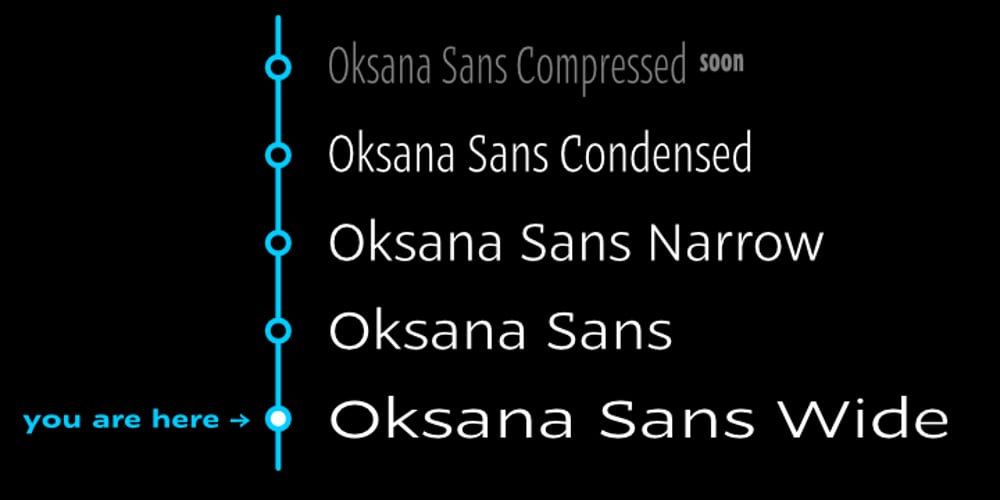
Oksana Sans Wide Font Family was designed by Andrij Shevchenko and published by AndrijType. Oksana Sans Wide contains 6 styles and family package options. Oksana Sans Wide is designed for short and big texts. It has six weights from Thin to Heavy. Supports Western, Central, Baltic Latin and European Cyrillic code pages. Old-style digits, some ligatures, alternative characters and Ukrainian hryvnia sign are also included.